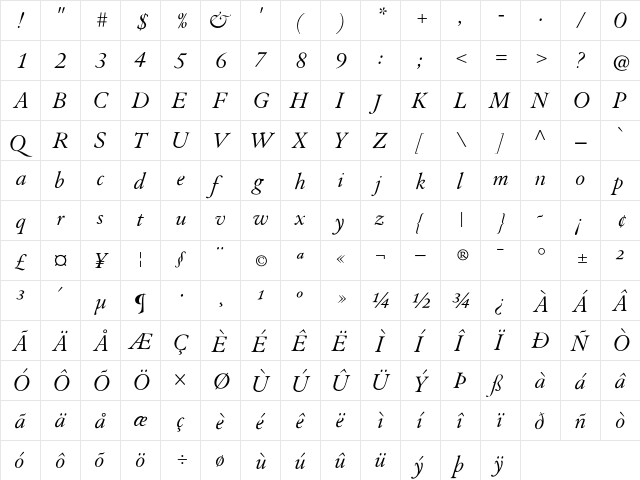
Augereau Italic
| Foundry | Expert Alphabets International, Ltd |
| Designer | Expert Alphabets International, Ltd |
Design Context for Augereau Typeface
Augereau offers clean, dependable letterforms without strong stylistic allegiance, making it a practical choice for designers who need flexibility. The slanted form adds forward momentum and visual energy.
Pro Tip: Use Augereau for emphasis, pull quotes, and subheadings where its slanted energy can add rhythm to the layout.